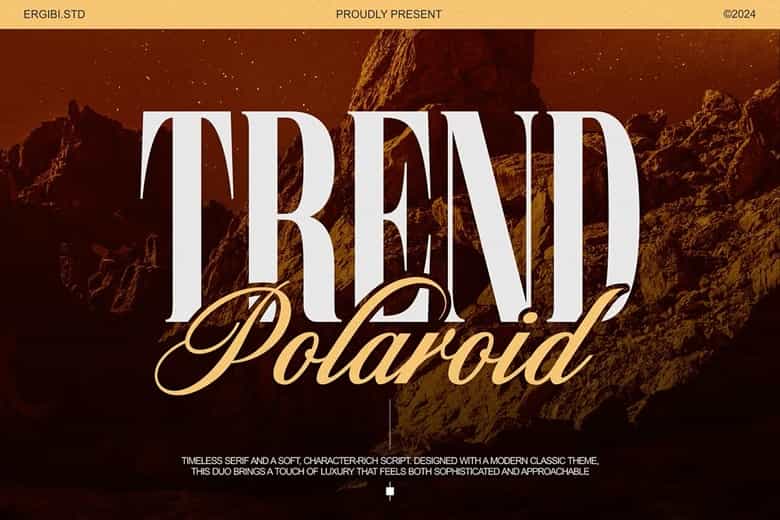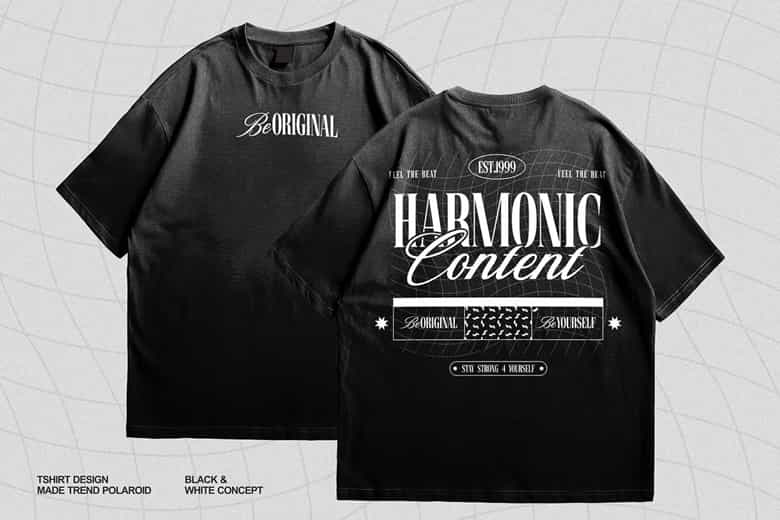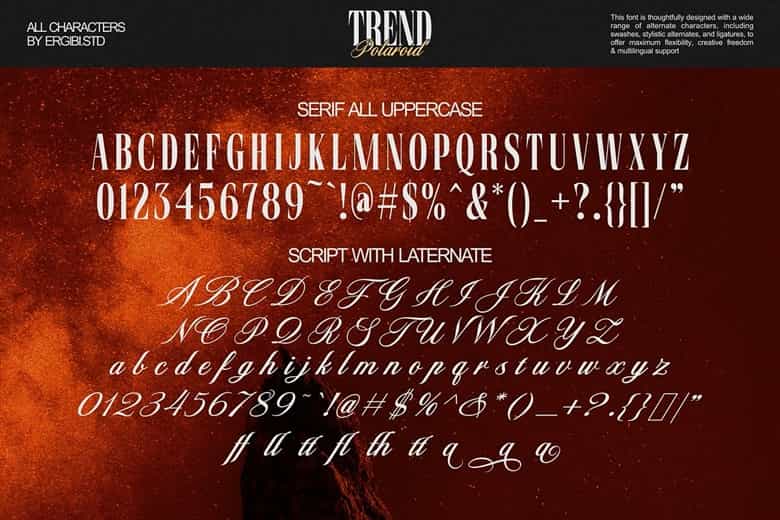
Discover Trend Polaroid Font, part of the Serif Script collection—a versatile and unique font perfect for adding a personal touch to your projects. Download it for free and enjoy crafting designs with style, from invitations to social media posts. This font is available exclusively for personal use, giving you the freedom to create without limits. Unlock your creativity with Trend Polaroid Font today!
A modern classic-inspired font, Trend Polaroid mixes the sophistication of a serif style with the energy of a script design. It’s suitable for modern designs, logos, posters, merchandise and projects that require a stylish and up to date look.